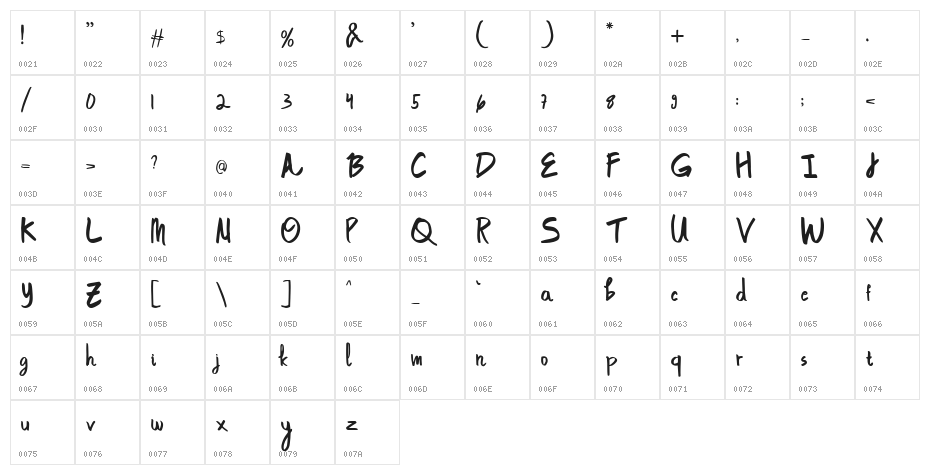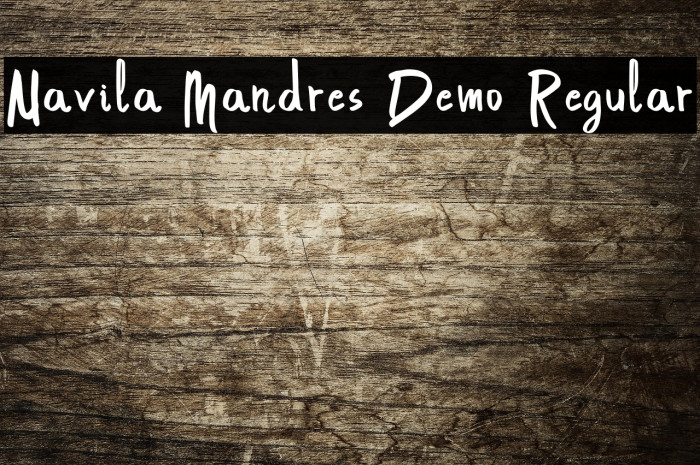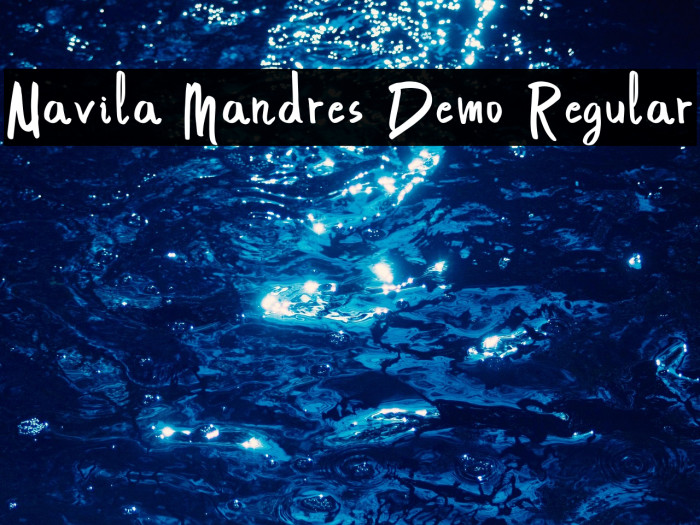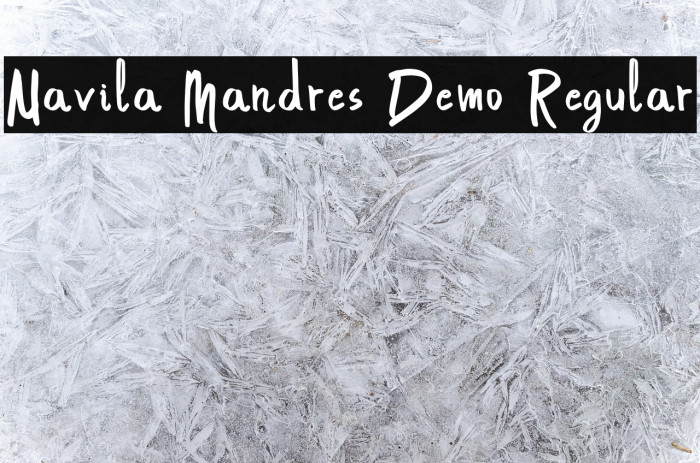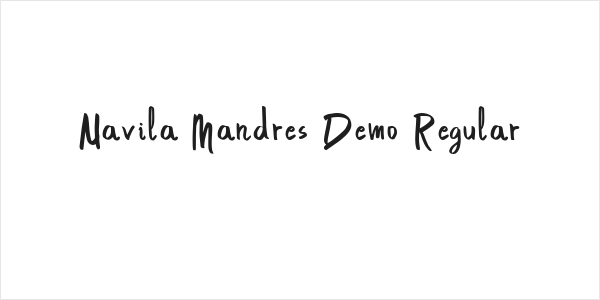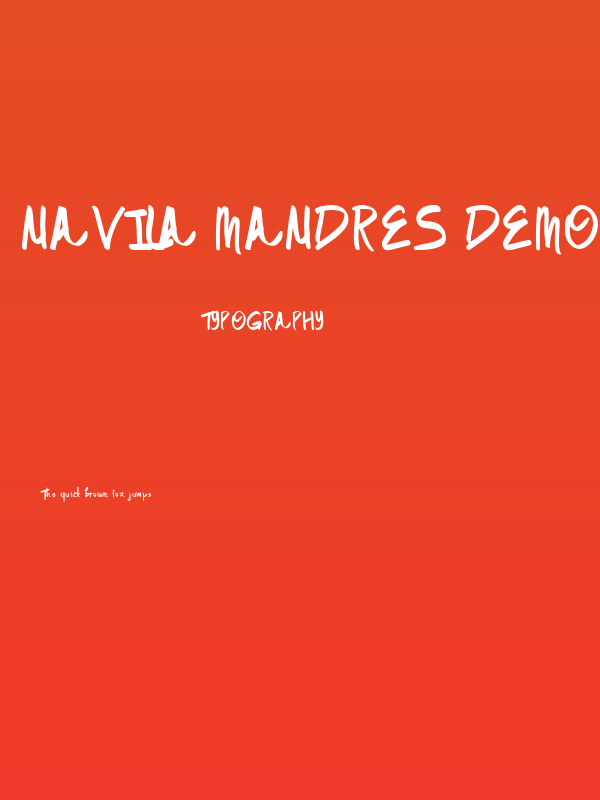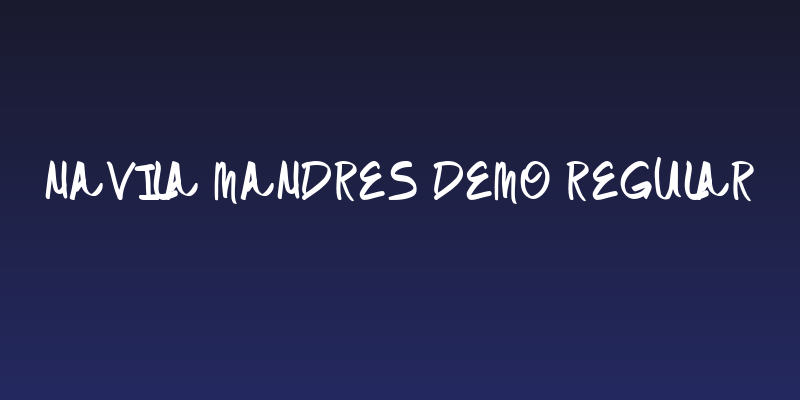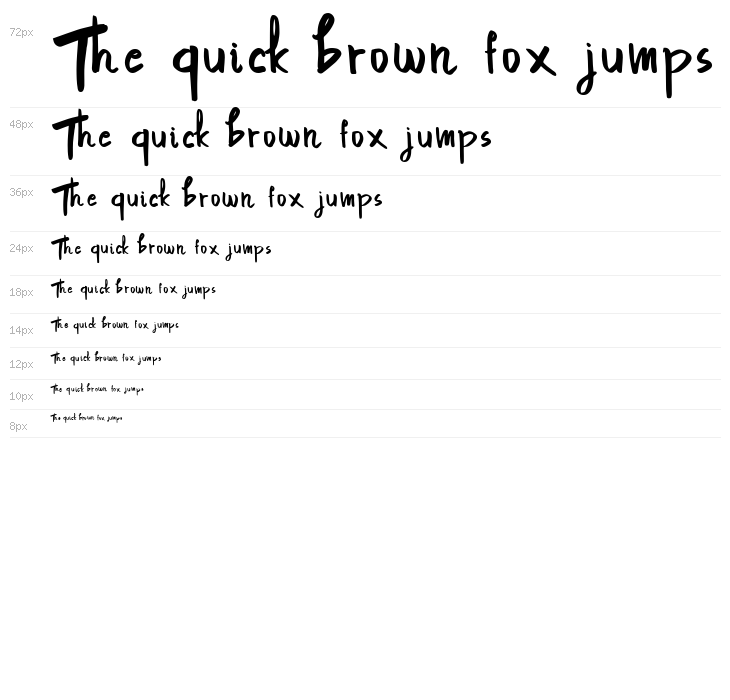
Navila Mandres Demo Regular Font
Navila Mandres Demo Regular Description
A playful, handwritten font with irregular strokes and a casual style.
| Use Case | Logos, Invitations, Casual Text |
| Proposed Projects | Greeting cards, invitations, casual branding. |